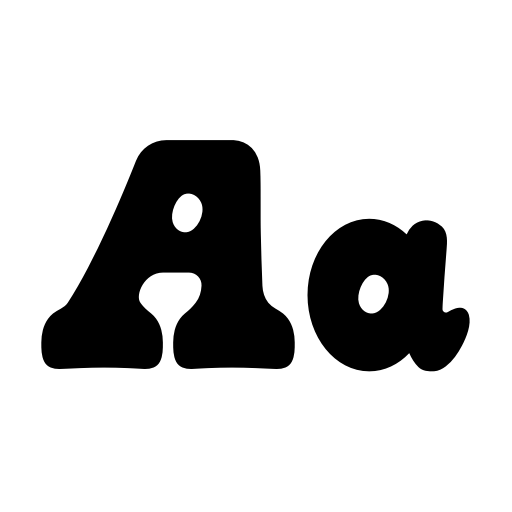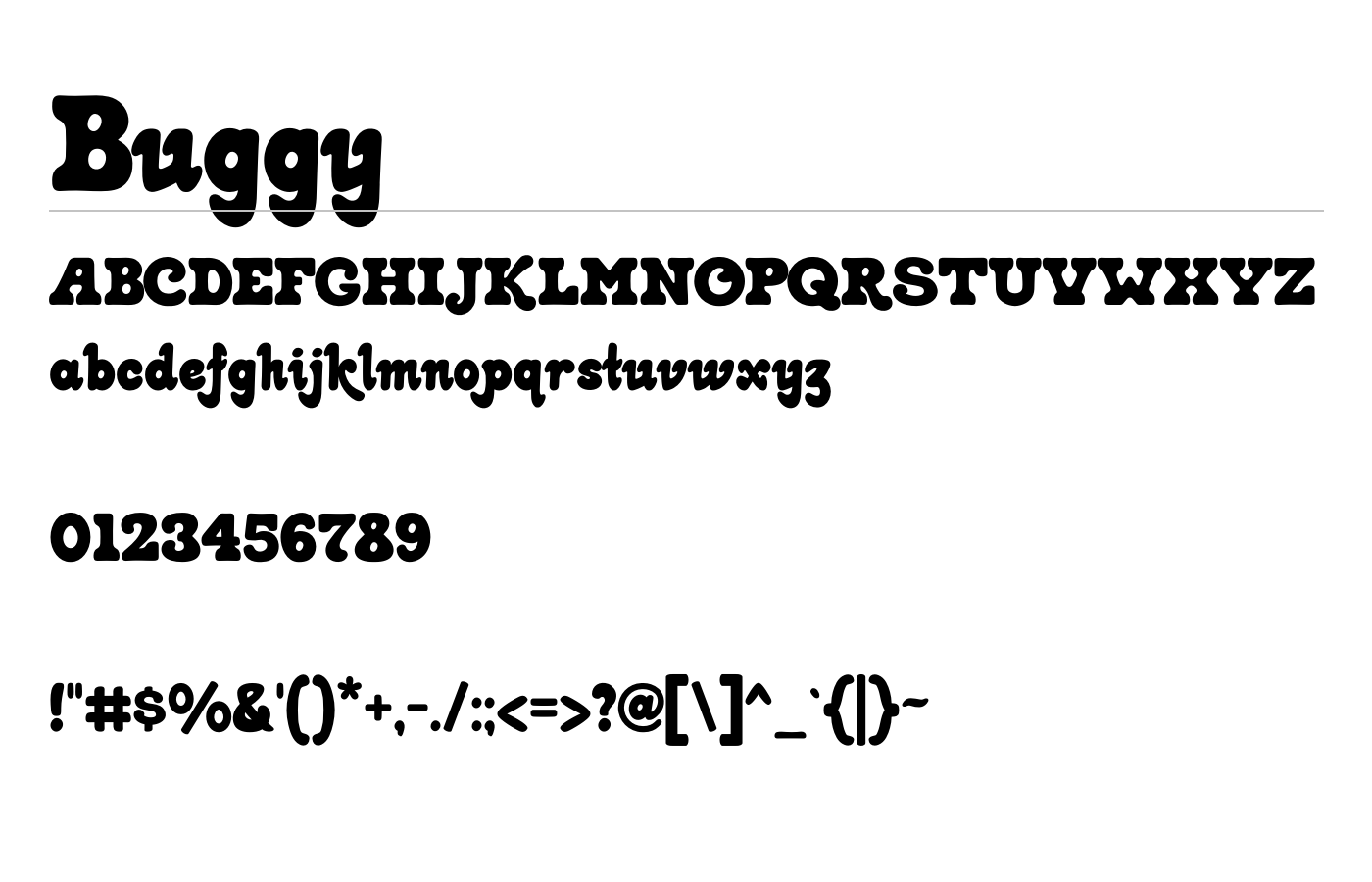
Buggy Font is a bold, playful slab serif typeface with thick, rounded serifs and smooth, heavy strokes that give it a friendly and approachable feel. Its wide, robust letterforms with moderate contrast and unique, quirky details make it ideal for eye-catching headlines, packaging, or branding that seeks a fun and retro vibe. This font works best in creative, informal projects where a strong personality and warmth are desired.
Buggy Font